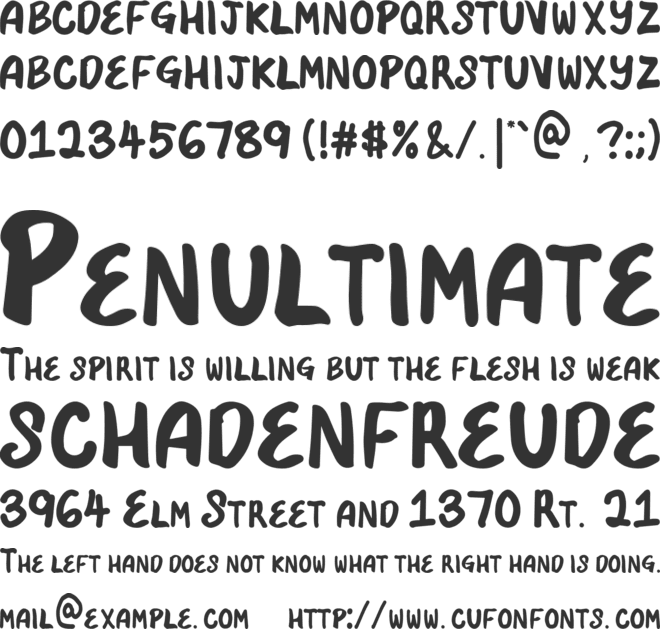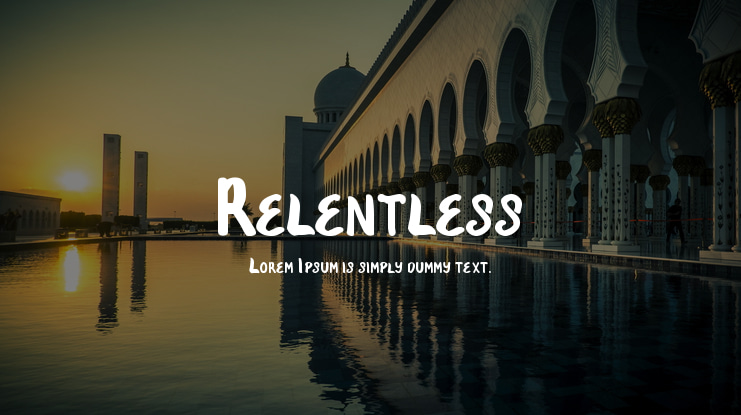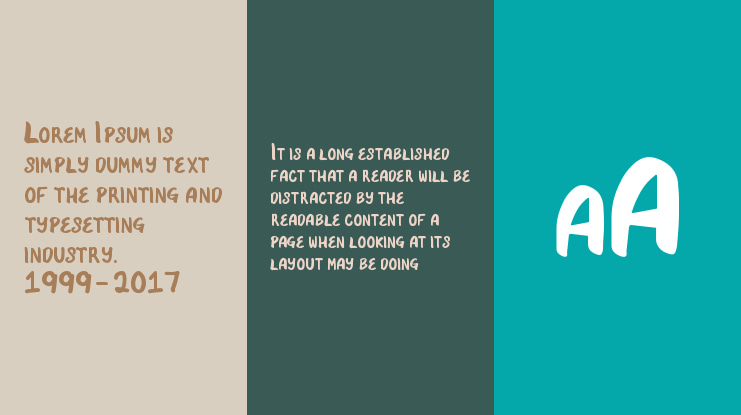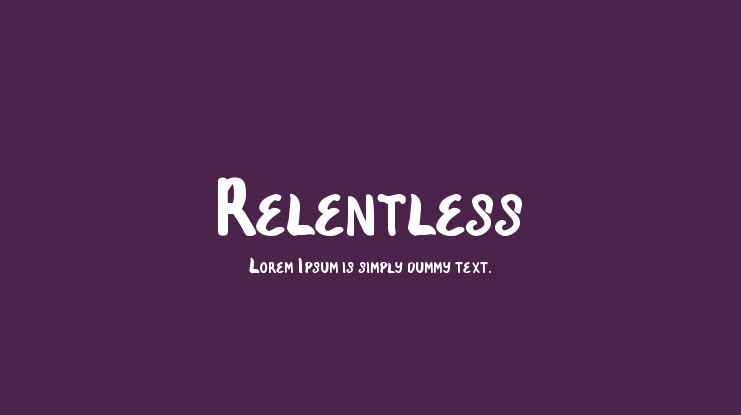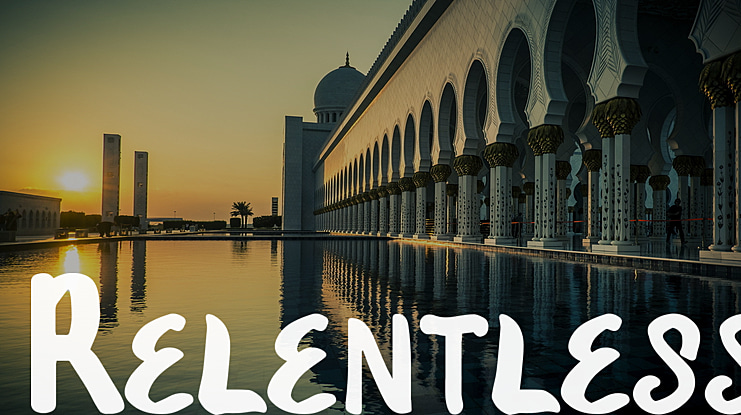
Relentless Font
Created for the sake of My Uni's Assignment Themed "Space & Time" but I went for a more friendly and universal approach for this one. Have fun using it!